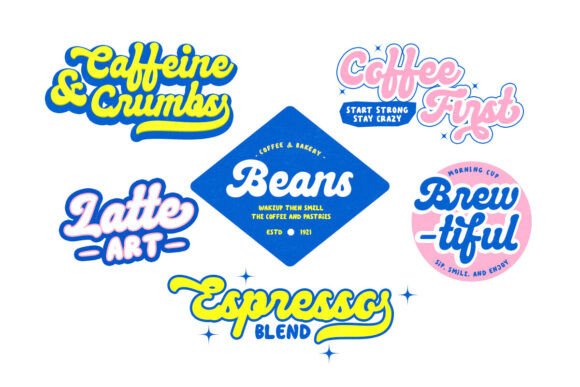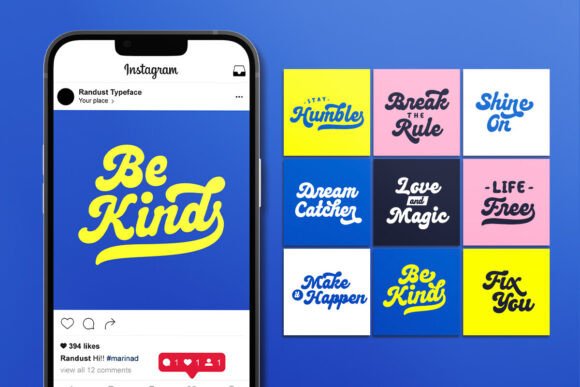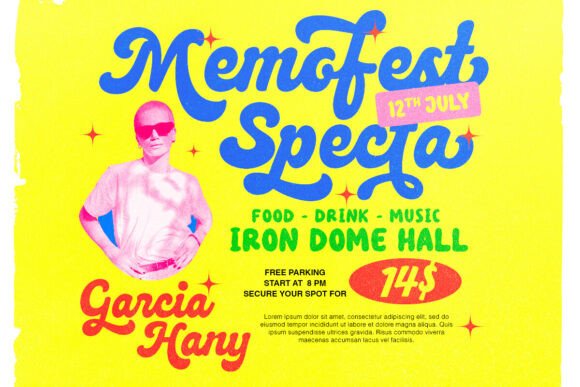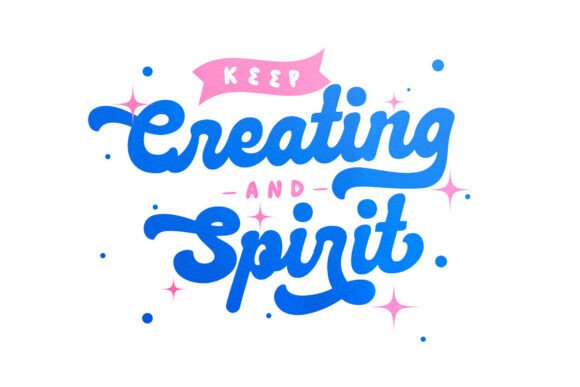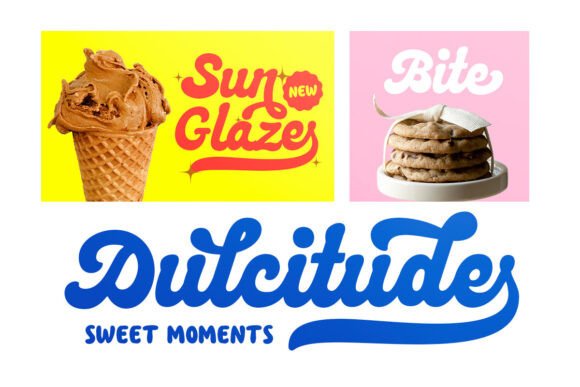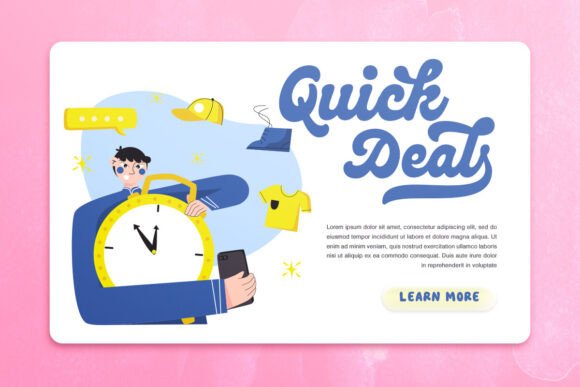
Introduction to Markile Font
Markile is a bold script with rounded shape.
This script is suitable for logotype, branding, or quotes With bunch of alternates that you can use with opentype features, you can make your designs more stunning and fancy.